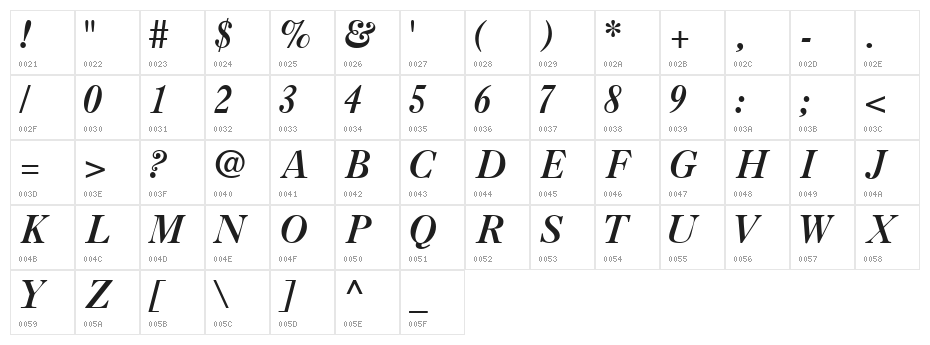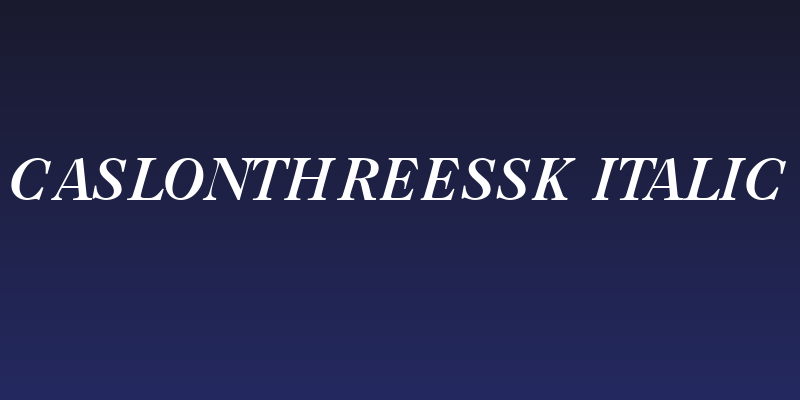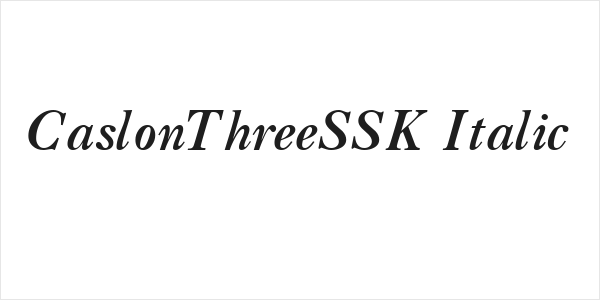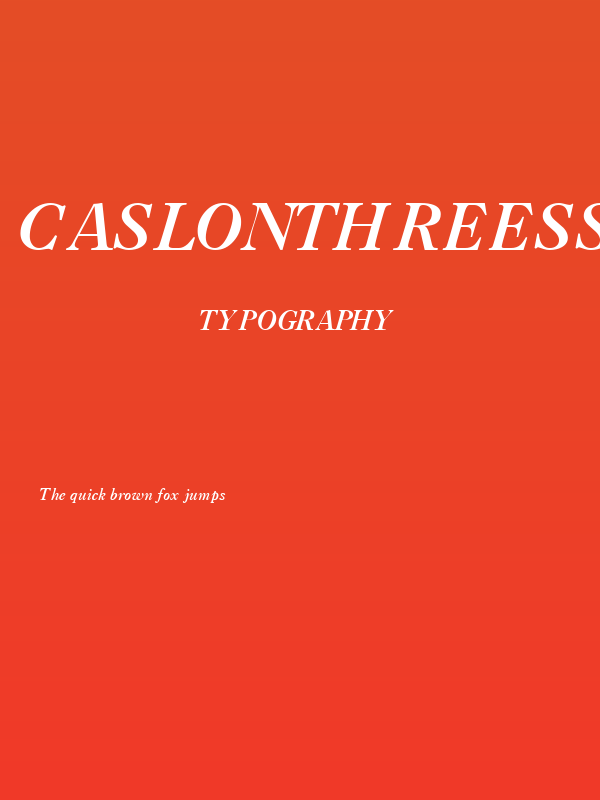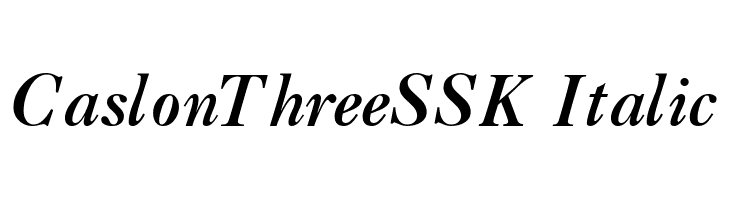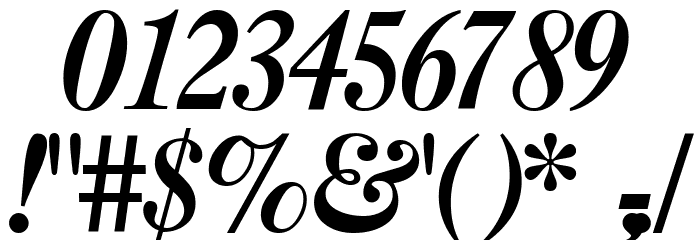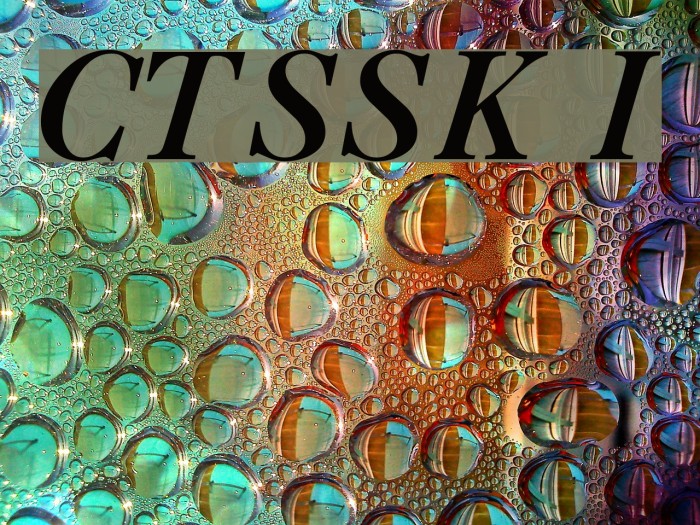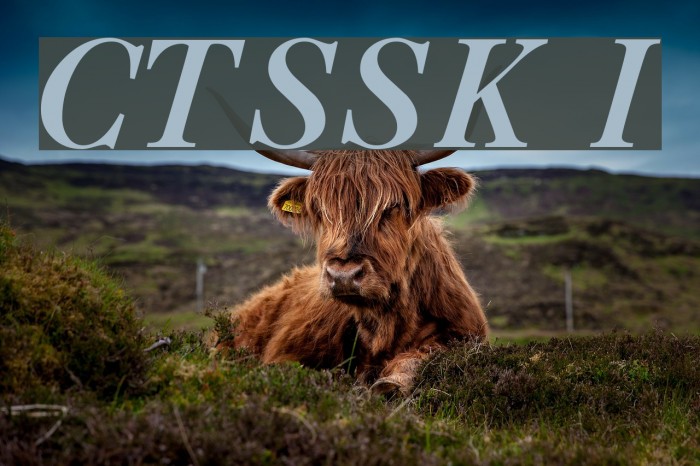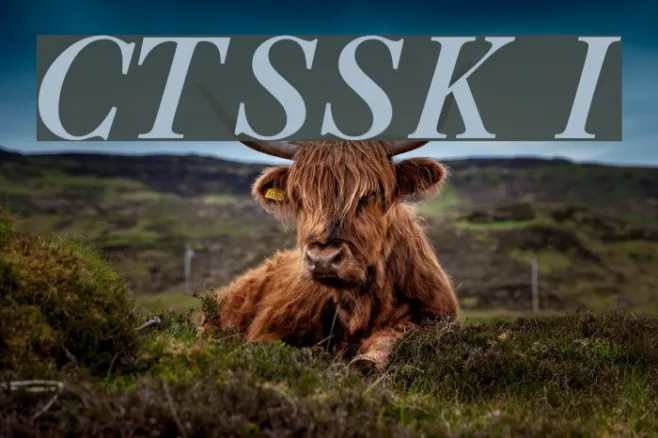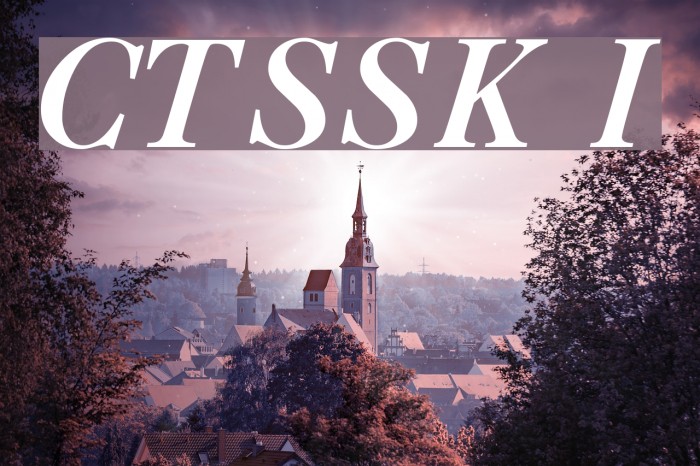
CaslonThreeSSK Italic Font
CaslonThreeSSK Italic Description
This elegant serif font features a classic italic style, characterized by its smooth, flowing lines and refined curves. The uppercase letters exhibit a traditional formality, while the lowercase letters maintain a consistent slant, enhancing readability. The numerals are well-proportioned, complementing the overall aesthetic. Special characters are thoughtfully designed, maintaining the font's cohesive look. The font's high contrast in stroke thickness adds a sophisticated touch, making it suitable for formal and elegant designs.
| Overall Style | Classic |
| Use Case | Headlines, Body text, Logos |
| Proposed Projects | Ideal for wedding invitations, formal documents, luxury branding, and editorial design. |